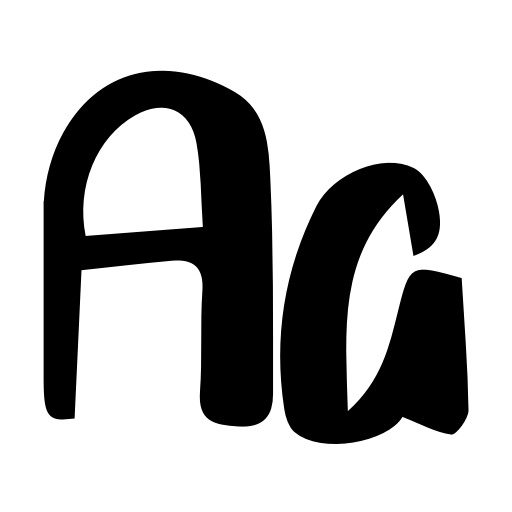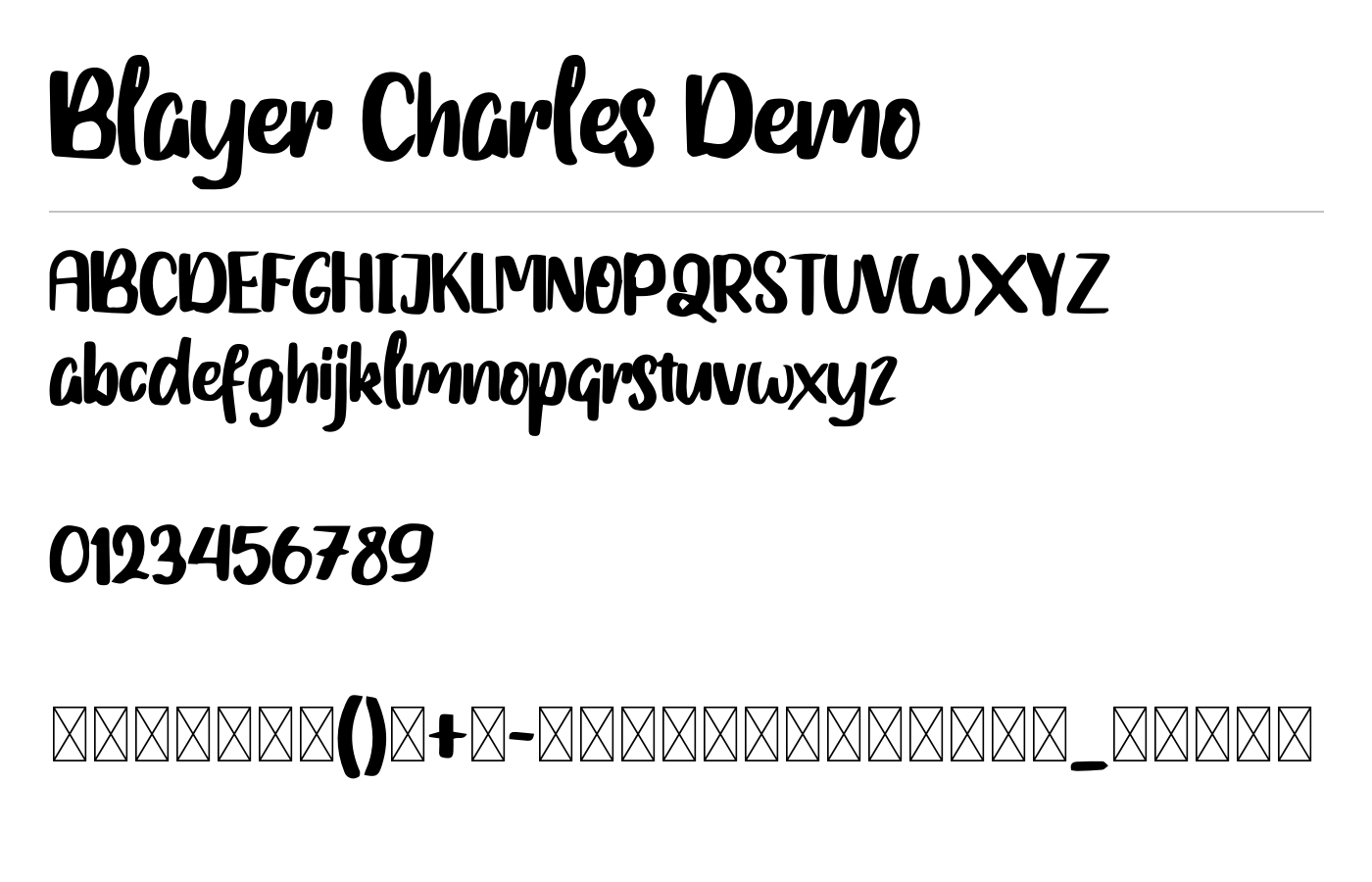
Blayer Charles Demo is a playful, hand-drawn script font with a bold weight and slightly condensed width, creating a friendly and approachable look. Its irregular, rounded strokes and casual letterforms make it perfect for informal branding, children’s books, or creative projects that need a lively, personal touch. This font shines in headlines, logos, and packaging where a warm and engaging vibe is desired.
Blayer Charles Demo Font
About Blayer Charles Demo Font